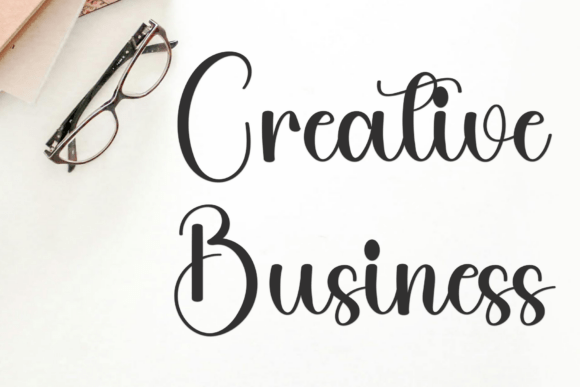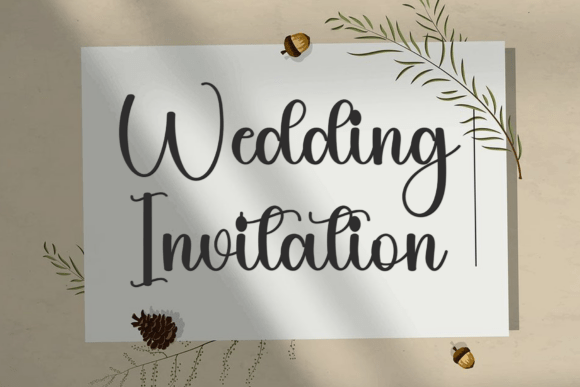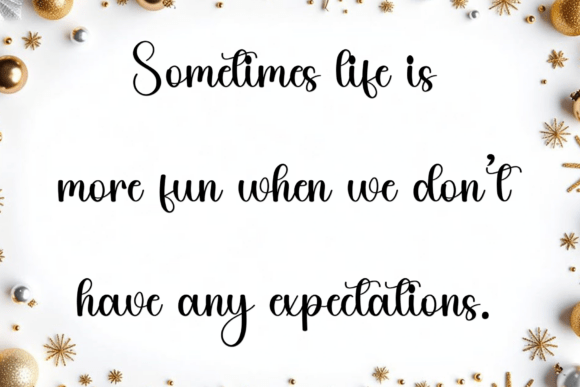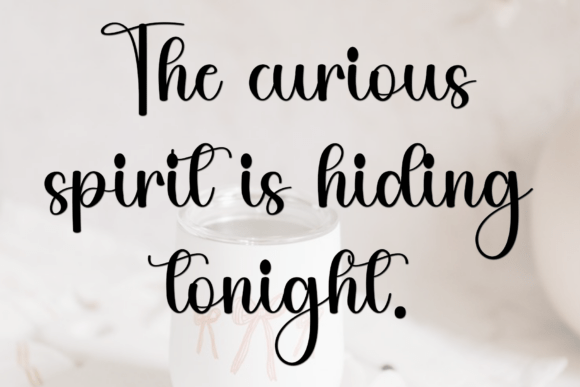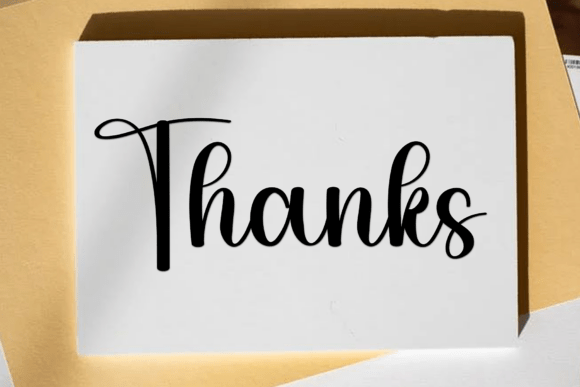
Discover the Elegance of Black Magnolia Font: A Modern Script Typeface
In the world of typography, few fonts manage to strike a balance between elegance and contemporary flair as effectively as Black Magnolia. This modern script typeface has been carefully crafted to add a touch of sophistication and charm to a wide range of creative projects. Whether you’re a designer looking for the perfect font for a wedding invitation, a crafty individual seeking to elevate your DIY projects, or a digital artist aiming to create stunning visual content, Black Magnolia is sure to impress.
The Beauty of Black Magnolia
Black Magnolia’s design is characterized by its flowing letterforms, smooth curves, and delicate contrasts. These features evoke the beauty of hand-drawn calligraphy, while maintaining the precision and versatility required for digital use. The font’s tall ascenders and sweeping loops give it a sense of sophistication and elegance, making it perfect for projects that demand a high level of refinement.
Versatile and Readable
One of the standout features of Black Magnolia is its refined rhythm, which captures attention without overwhelming the design. This balance of simplicity and style ensures that the font is not only visually appealing but also highly readable, even in smaller sizes. Whether you’re using Black Magnolia for a large headline or a smaller decorative text, it is sure to make a lasting impression.
Ideal for a Range of Creative Projects
Black Magnolia’s versatility makes it an excellent choice for a wide range of creative projects. Some of the ideal uses for this font include:
- Wedding Invitations: Add a touch of romance and elegance to your wedding invitations with Black Magnolia’s flowing script.
- Branding and Packaging: Use Black Magnolia to create a sophisticated brand identity that stands out from the crowd.
- Logos and Icons: The font’s unique letterforms make it perfect for creating custom logos and icons that demand attention.
- Social Media Graphics: Elevate your social media presence with stunning graphics that showcase Black Magnolia’s elegance.
- Editorial Layouts: Use Black Magnolia to add a touch of sophistication to your editorial layouts, such as magazines, newspapers, and blogs.
PUA-Encoded for Easy Access
Timeless Sophistication
Black Magnolia brings a timeless sophistication to any design project, allowing designers to create work that feels both romantic and modern. The font’s balance of simplicity and style ensures that it will remain a popular choice for years to come, making it an excellent investment for any designer or crafty individual.
In conclusion, Black Magnolia font is a modern script typeface that offers a unique blend of elegance and contemporary flair. Its flowing letterforms, smooth curves, and delicate contrasts make it perfect for a wide range of creative projects, from wedding invitations to editorial layouts. With its PUA-encoded design and versatile use, Black Magnolia is sure to become a staple in any designer’s toolkit. So why wait? Discover the beauty of Black Magnolia today and elevate your design projects to new heights of sophistication and charm.